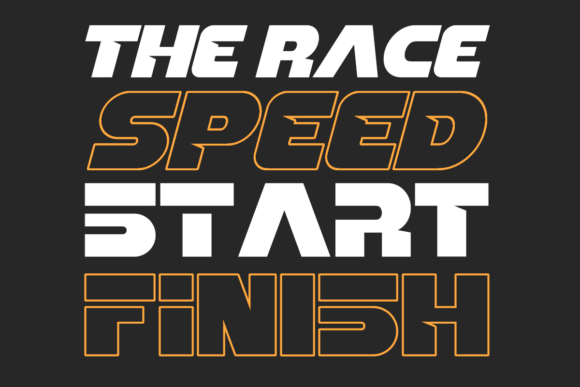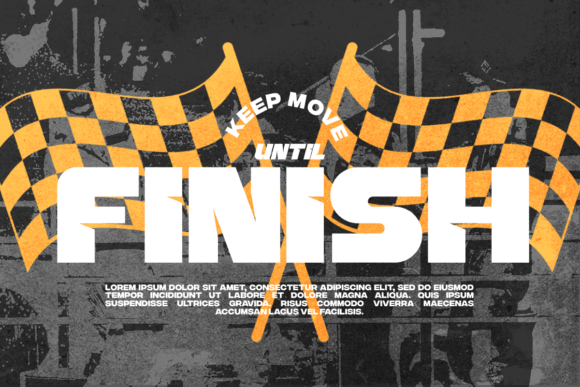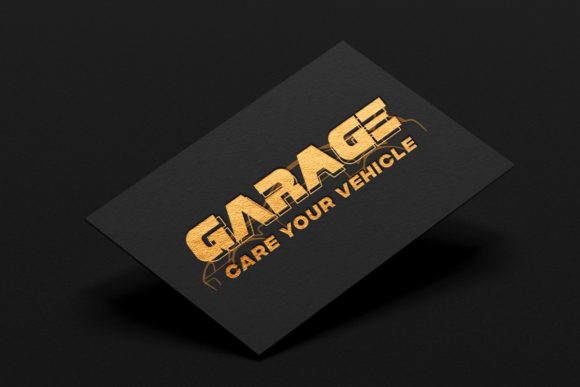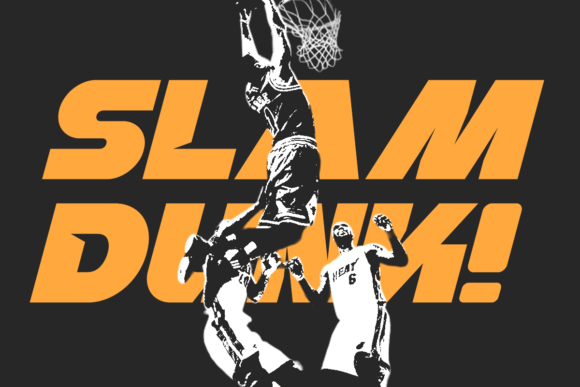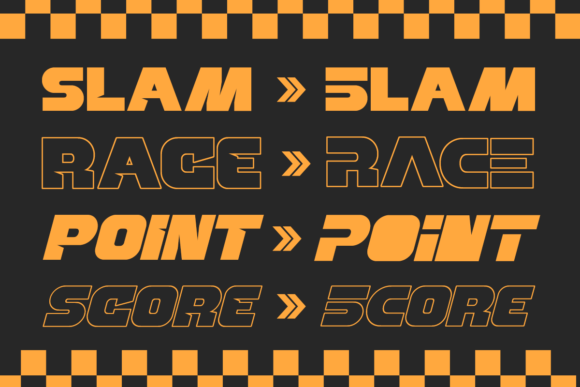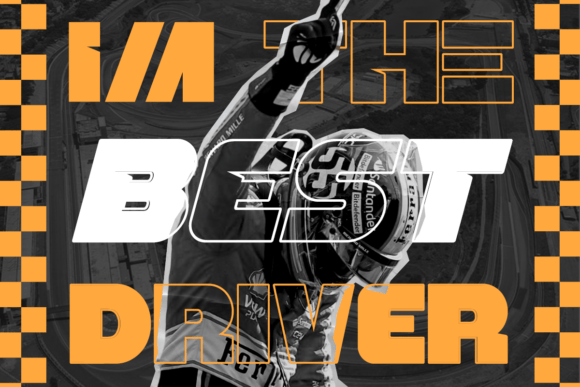
Introduction to Matchday Font Font
Fonts play a crucial role in design, and the Matchday Font font is a typeface that brings both character and versatility to any project. Whether you’re working on a branding project, a website, or a print design, the Matchday Font font offers a unique style that can elevate your work.
Introducing Matchday, a sports font awesome with unique alternates that combine the power and speed of modern sports with the elegance of classic design.
Perfect for sports headlines, logos, branding, and more, Matchday features four styles: Regular, Italic, Outline & Italic Outline Its smooth curves, clear ligatures, and modern aesthetics ensure readability and a dynamic presence.
The Matchday Font font is more than just a typeface – it’s a design tool that helps you communicate your message with style and clarity. Its unique character set and versatile design make it suitable for a wide range of applications, from elegant invitations to bold headlines.
With its carefully crafted letterforms and balanced proportions, the Matchday Font font ensures readability and visual appeal across all mediums.
The Matchday Font font stands out with its unique design, exceptional readability, and versatility across various design applications.